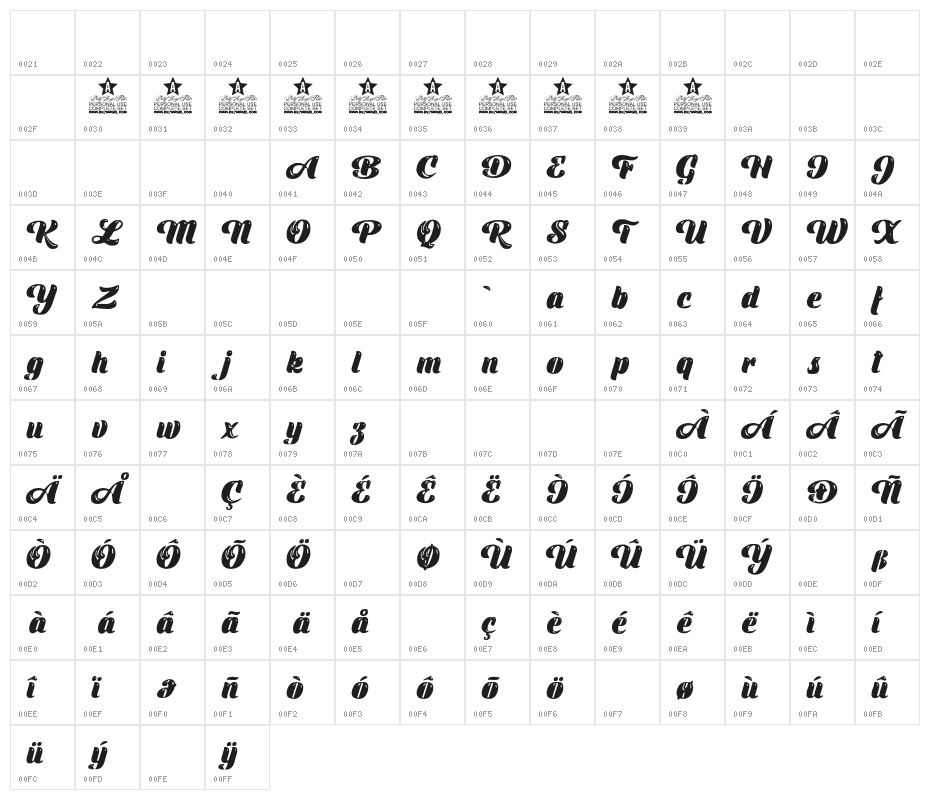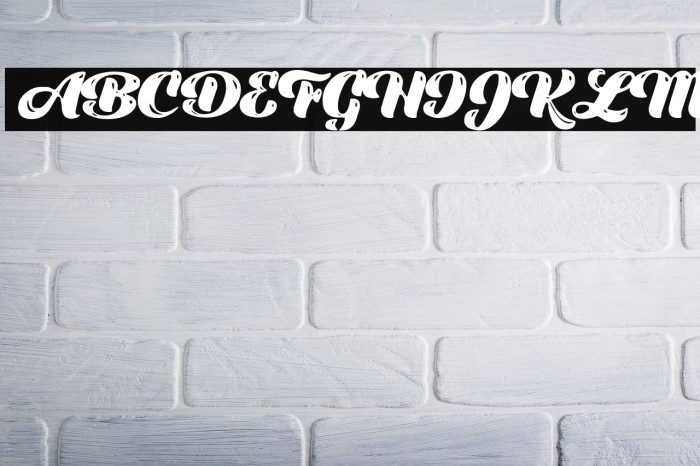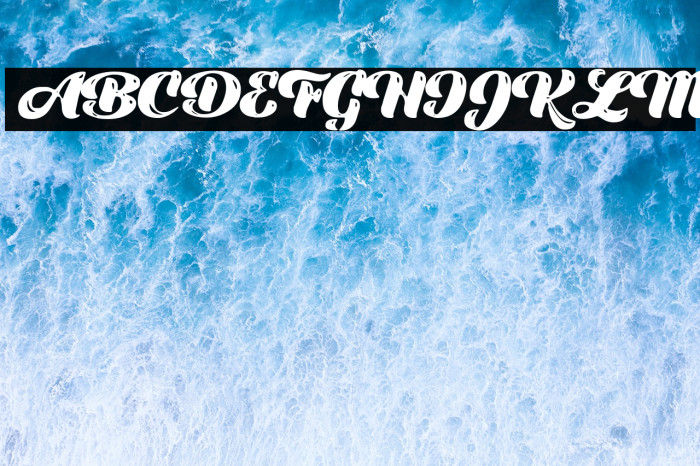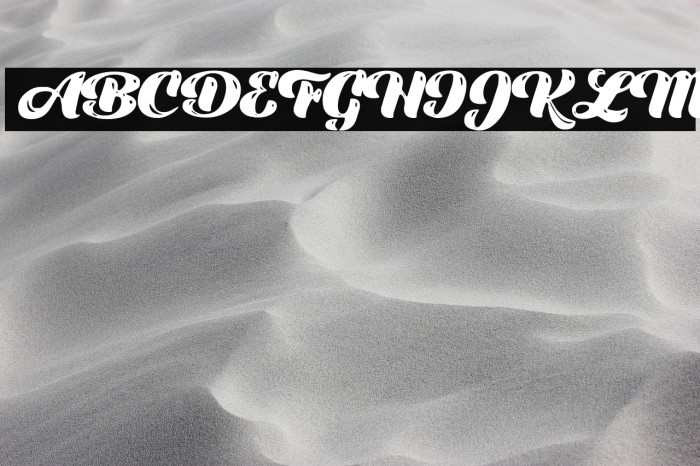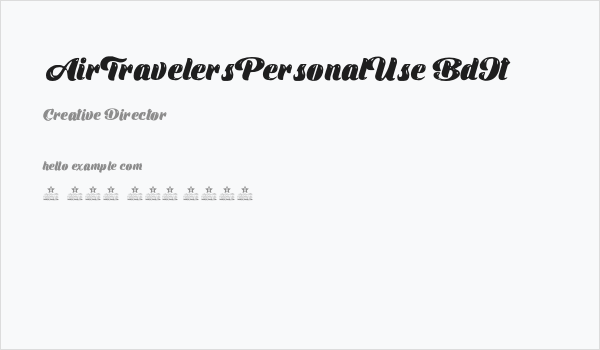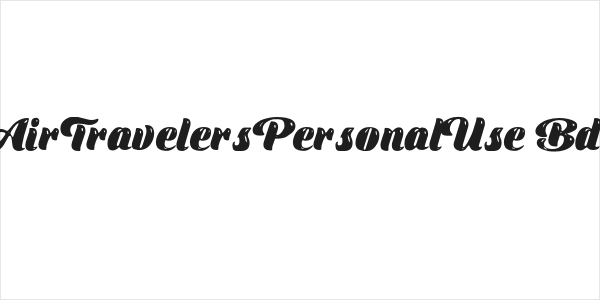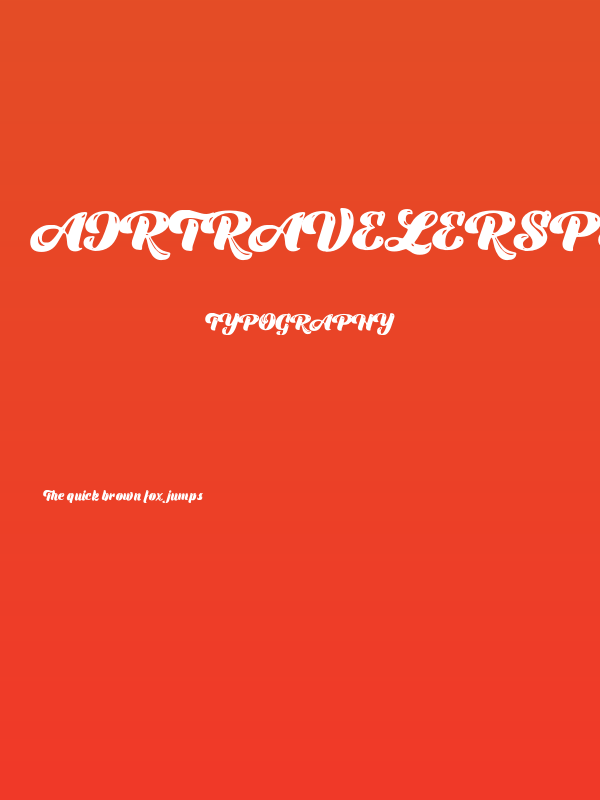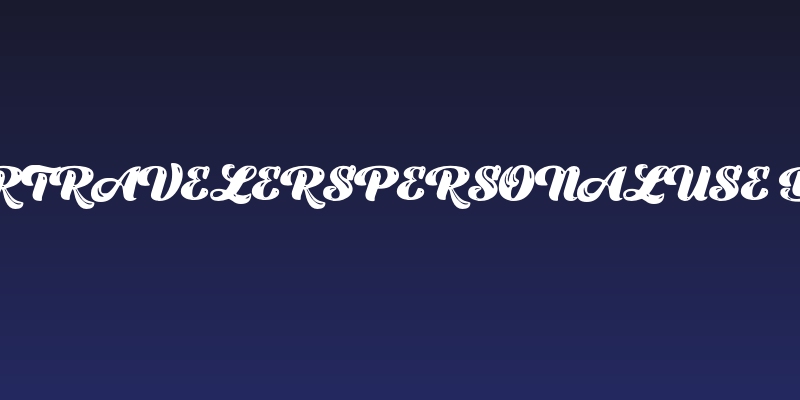
AirTravelersPersonalUse-BdIt Font
AirTravelersPersonalUse-BdIt Description
This font features a bold and dynamic script style, characterized by its flowing curves and thick strokes. The uppercase letters exhibit a sense of elegance and movement, while the lowercase letters maintain a consistent and harmonious flow. The numbers and special characters are designed to complement the overall aesthetic, ensuring a cohesive look across all text. The font's boldness and unique style make it stand out, suitable for projects that require a touch of sophistication and flair.
| Proposed Projects | Ideal for branding, logo design, invitations, and decorative headlines. |